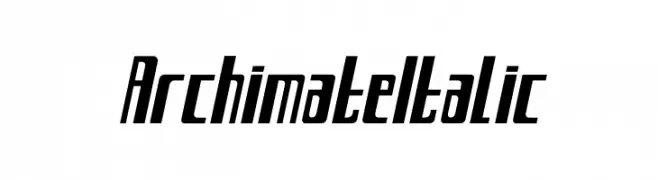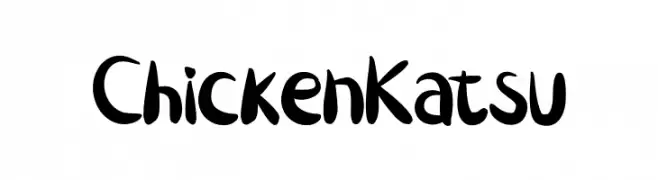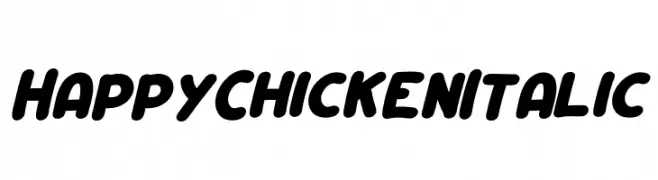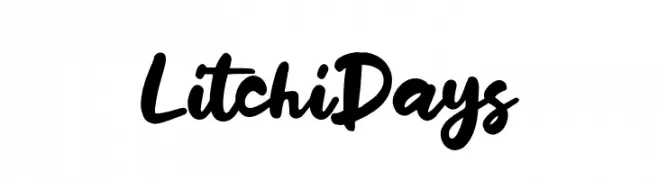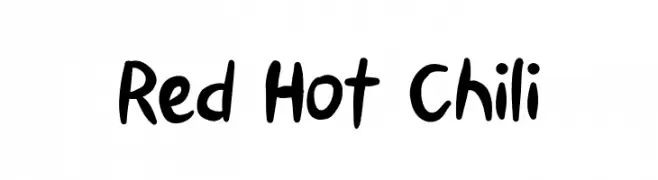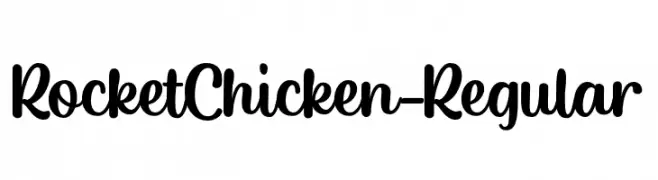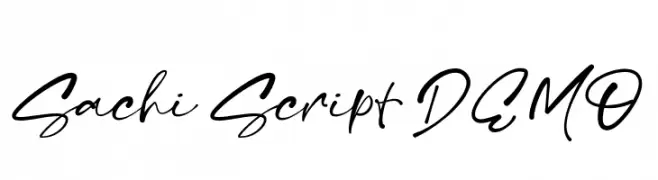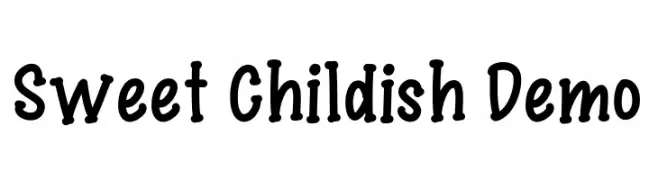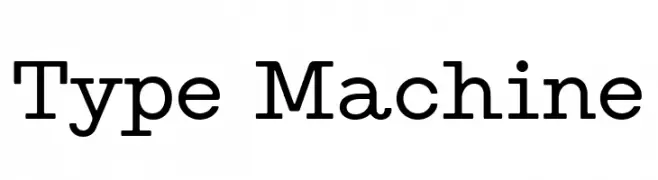
A playful, hand-drawn font with bold, rounded characters and a whimsical style.
A bold, handwritten font with a playful and energetic style.
A modern, italicized font with bold strokes and a sleek, condensed design.
A lively, cursive script font with fluid, interconnected characters and varying stroke widths.
A playful, bold script font with smooth curves and thick strokes.
A playful, bold, and italic handwritten typeface with smooth curves and a dynamic appearance.
A bold slab serif font with a mechanical and structured design.
A playful, bold, and rounded font with a hand-drawn feel.
A bold, hand-drawn font with playful, rounded characters.
A bold, high-impact display font with thick, blocky letters and unique horizontal line crossings.